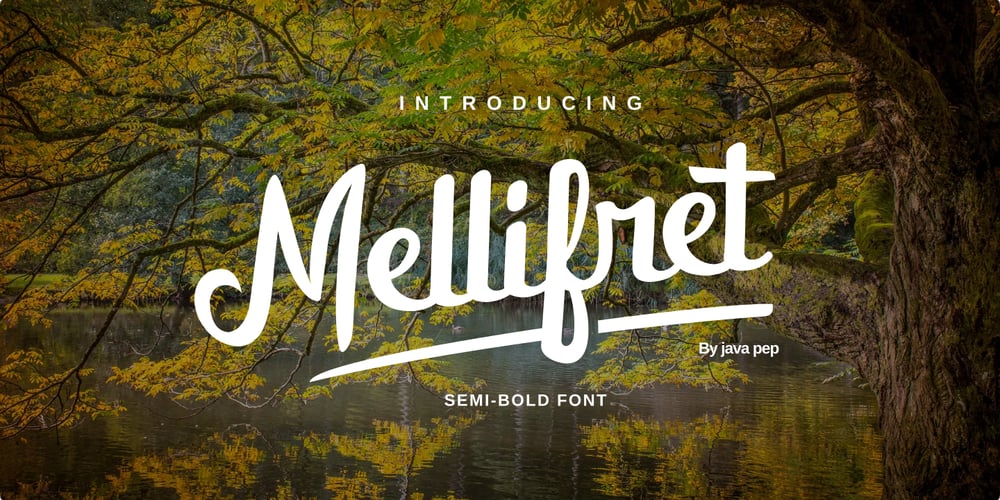
Mellifret Font Family was designed by Java Pep and published by Java Pep. Mellifret contains 2 styles and family package options. Mellifret is a semi-bold script font which has strong, bold, and elegant characters. Mellifret is suitable for posters, logos, book covers and magazines, website tittles, wedding cards and more. Mellifrent offers: 1. Multi-lingual support for Danish, Cornish, Croatian, Czech, Filipino, French, Portuguese, Hungarian, Irish, English, Finnish, Norwegian, Polish, Romansh, Italian, Swiss German and others. 2. Includes ligatures set, alternates and swash characters set. I hope you enjoy using Mellifret! If you have any question about this font, please let me know with your comments. Thanks for watching!